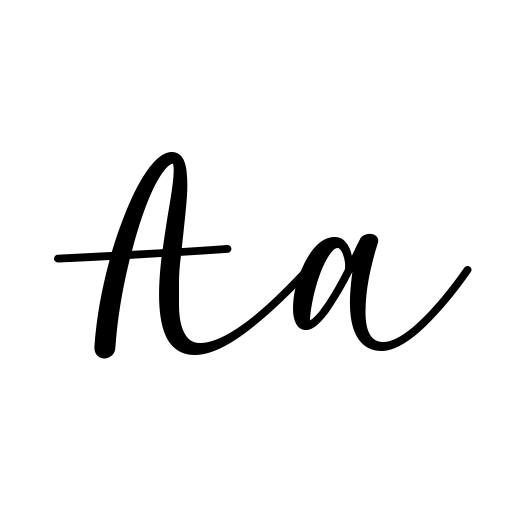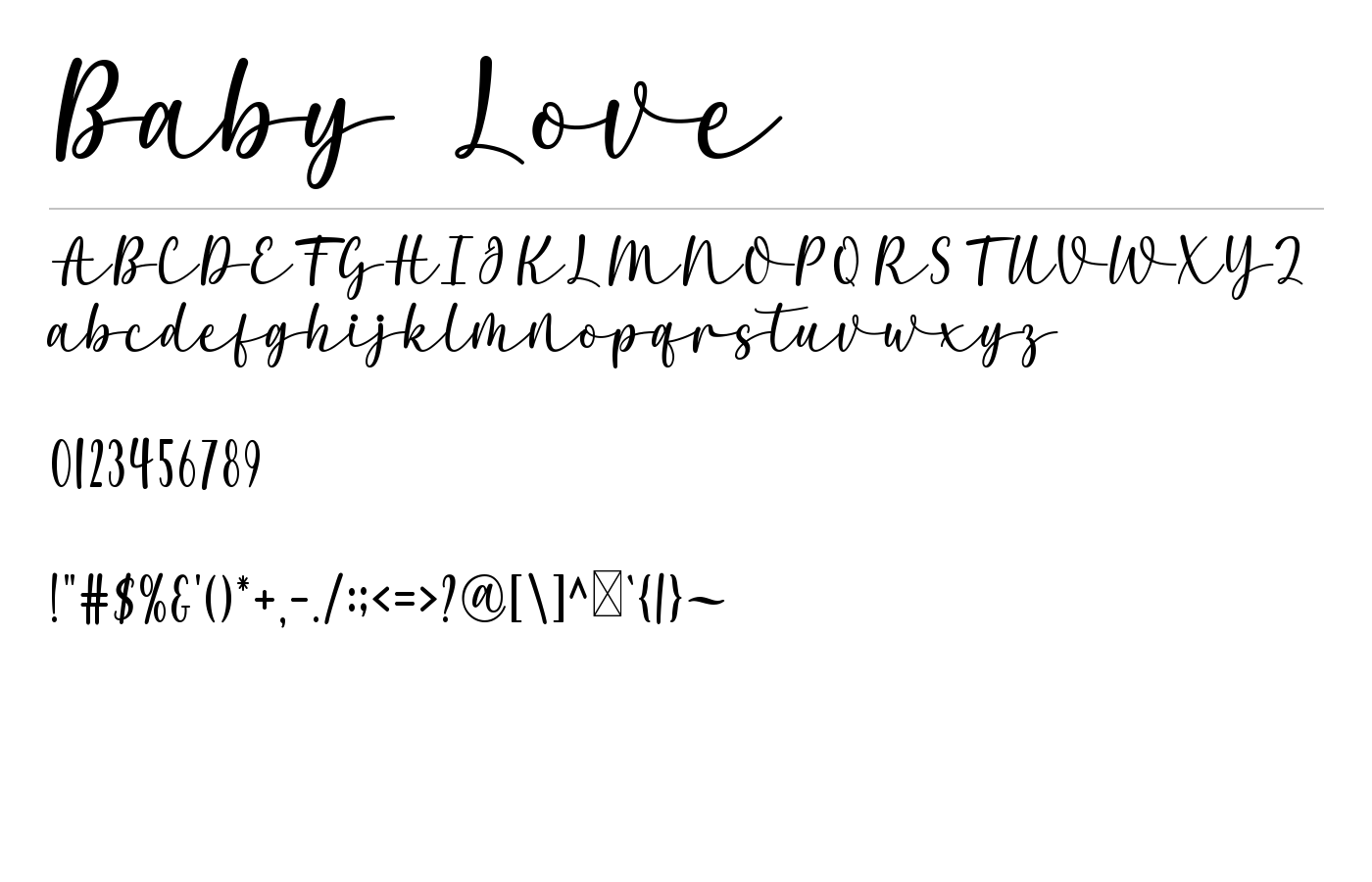
Baby Love is a delicate script font featuring smooth, flowing lines and a handwritten, casual charm. Its slender, elegant strokes and playful letterforms make it perfect for designs that want to convey warmth, friendliness, and creativity, such as invitations, branding for boutique or lifestyle products, and heartfelt messaging. This font works well in contexts where a personal, approachable touch is desired.
Baby Love Font
About Baby Love Font